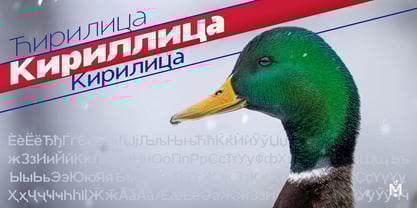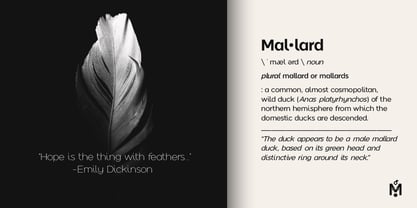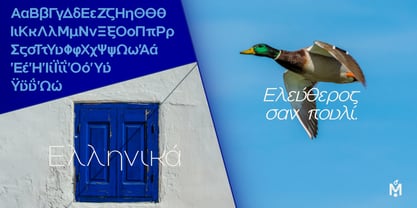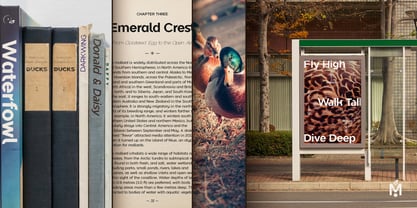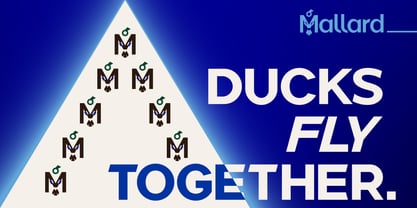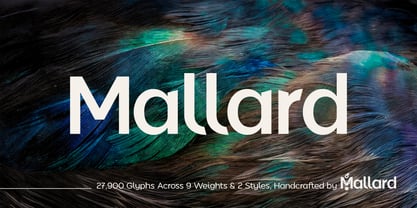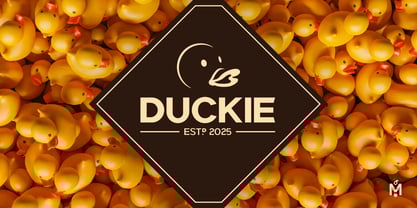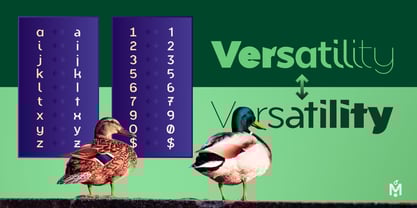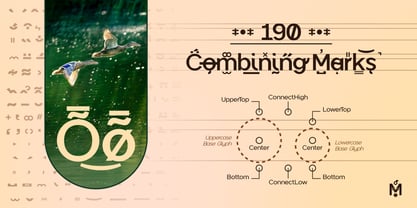
Mallard
by Mallard
Mallard, the flagship sans serif of its namesake foundry, was designed by Drake Fontana, to be a typeface without excess — built on a simple truth that versatility, utility, and beauty are inseparable. Anchored by 15° diagonals, juxtaposed with circular curves, it’s a sans serif that feels engineered yet unmistakably human. That tension creates a dense tapestry of forms and interplay that is at once systematically geometric, yet also unexpectedly organic.
On the threshold of the AI era, Mallard stands as a testament to human craftsmanship — every one of its 27,900 glyphs drawn, refined, and balanced with the care of a single artisan’s hand. It carries forward the enduring legacies of modernist masterpiece sans serifs: the clarity of Futura, the confident utility of Gotham, and the ubiquity of Montserrat. In this tradition, Mallard steps forward humbly in 2025, as the next workhorse sans-serif, crafted to bolster designer toolkits across the globe.
From the foothills of Colorado’s Rocky Mountains to the shores of Istanbul’s Bosphorus Strait, Mallard embodies an effervescent fusion of perspectives. That abundance is reflected in a family of nine weights and two styles, upright and oblique, with support for 134 languages across Latin, Cyrillic, Greek, and IPA scripts. Extensive stylistic alternates, over 190 unique combining marks, and a comprehensive set of arrows and symbols make Mallard a versatile companion for designers seeking a single typeface to unify projects across mediums and cultures.
About Mallard
Mallard is part of an international boutique design house based in Denver, USA, and İstanbul, Türkiye, distinguished by a deeply humanistic and versatile approach to visual storytelling. Symbolized by the mallard duck—unique in its ability to walk, swim, and fly—Mallard embodies adaptability, elegance, and meticulous craftsmanship. With an unwavering commitment to the beauty and impact of designed environments, the type foundry cultivates letterforms that elevate dense and layered narratives, skillfully serving diverse cultural contexts. Each typeface emerges from a thoughtful exploration of form and function, designed for universal application across disciplines and use cases.